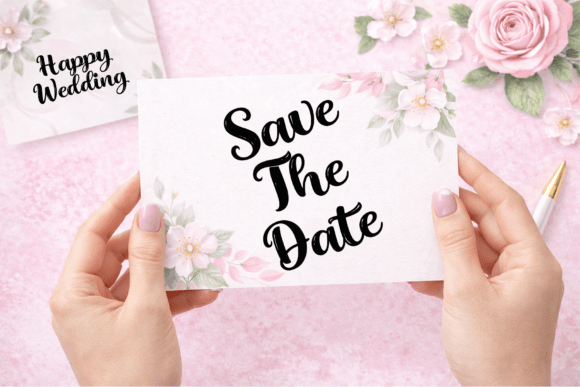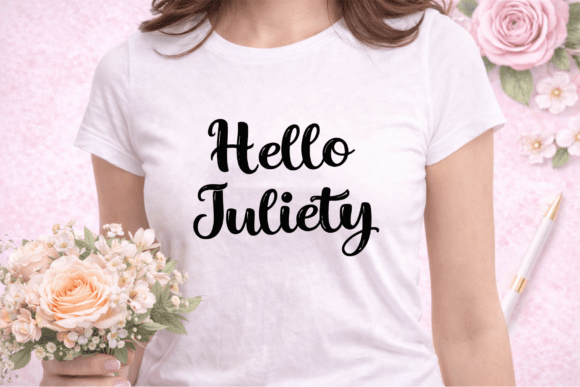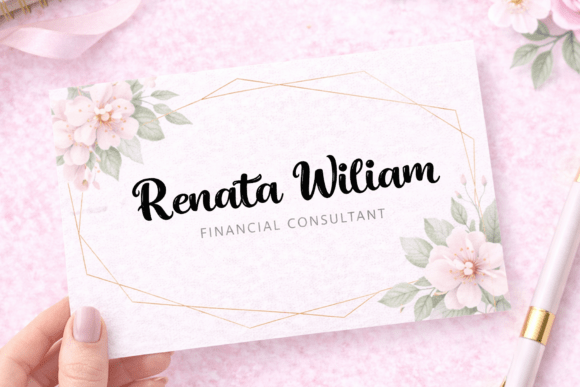
Introduction to Juliety Font
Introducing Juliety, a graceful modern calligraphy script font that effortlessly blends smooth curves with classy strokes.
Imagined to captivate a sleek, up-to-date appeal, Juliety retains superb readability, simultaneously oozing style and accessibility Its dollops of delicate elegance enhance branding, infuse wedding invitations with more charm, make stationery more appealing, packaging standout, and logos more memorable.
Why Choose Juliety Font?